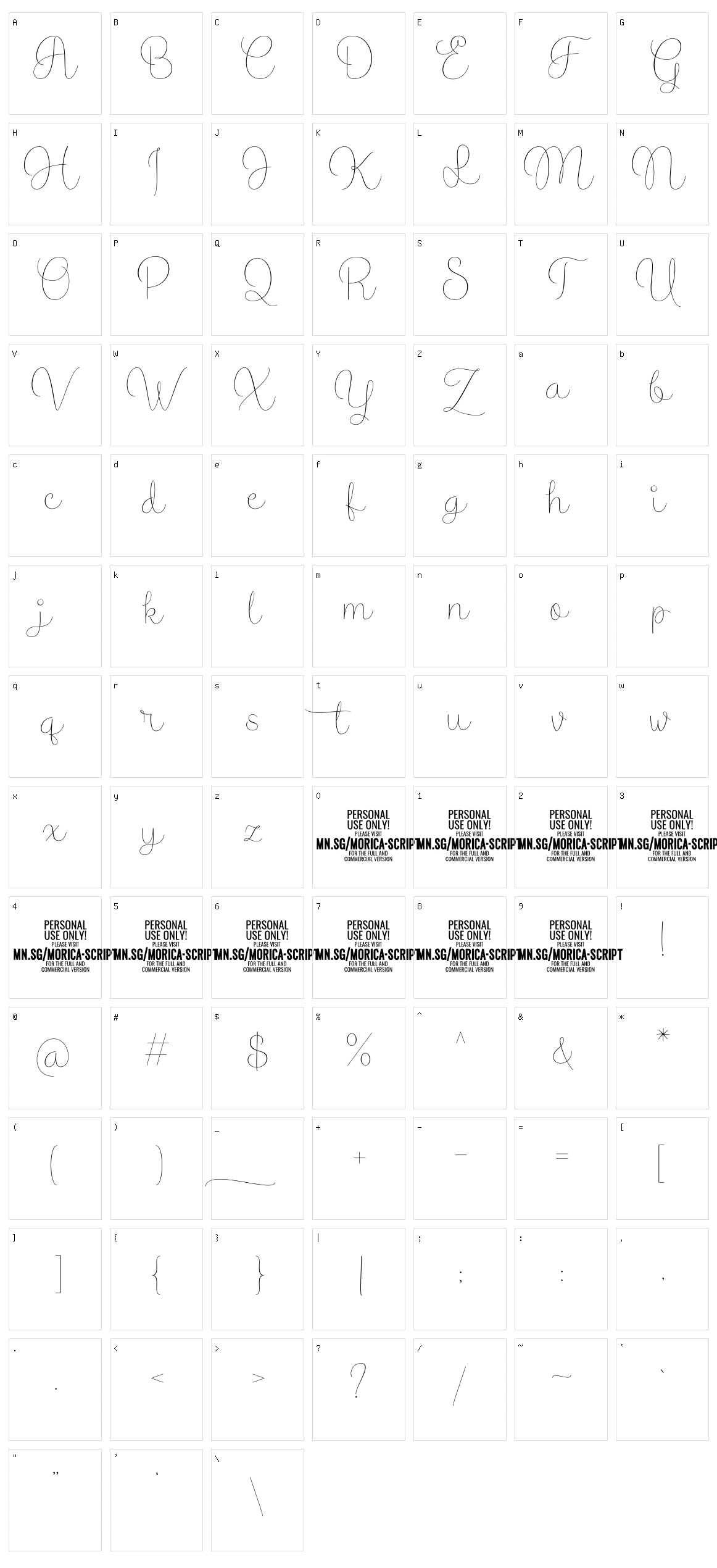
Morica Script, designed by Mans Greback, is a delicate and romantic handwritten typeface with a fine touch. Its thin lines and whimsical style bring a sense of elegance and charm to your creative projects. Perfect for wedding invitations, heartfelt letters, and intimate stationery, Morica Script embodies the beauty of naive handwritten communication.
Mans Greback sought to capture the emotional essence of heartfelt words, crafting each character with attention to detail and a gentle, delicate touch.
The font is built with advanced OpenType functionality and has a guaranteed top-notch quality, containing stylistic and contextual alternates, ligatures, and more features; all to give you full control and customizability. It has extensive lingual support, covering all Latin-based languages, from Northern Europe to South Africa, from America to South-East Asia. It contains all characters and symbols you'll ever need, including all punctuation and numbers.
Mans Greback, a Swedish typeface designer, is known for his dedication to creating unique and eye-catching fonts. Aiming to infuse emotion into his work, Mans' passion for design and typography has led him to create a diverse portfolio that resonates with designers worldwide.